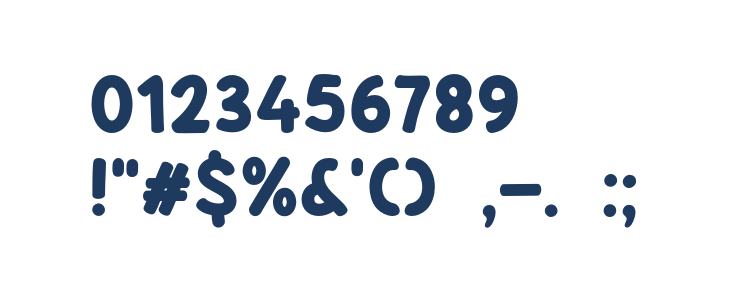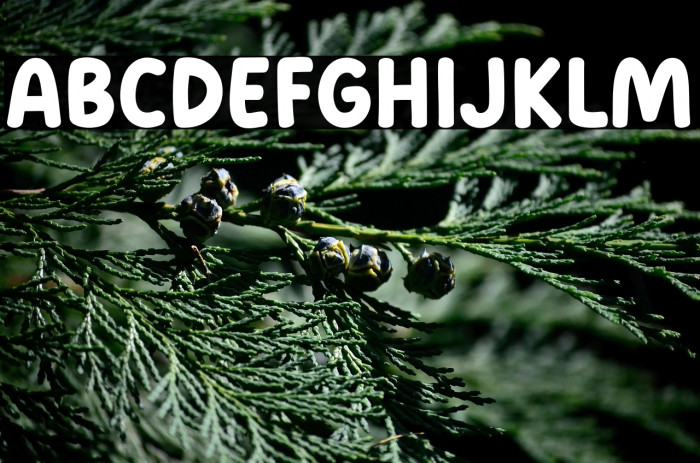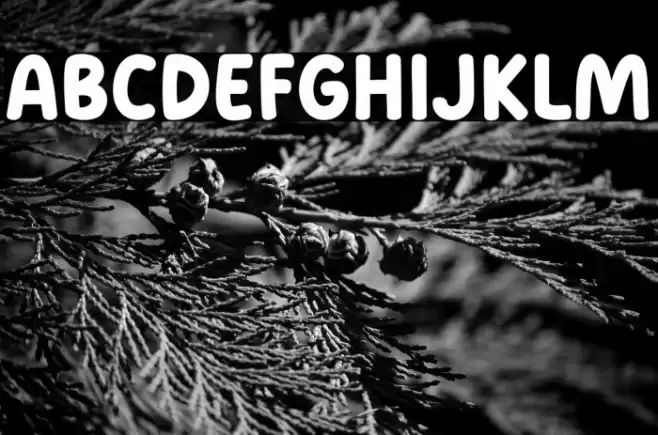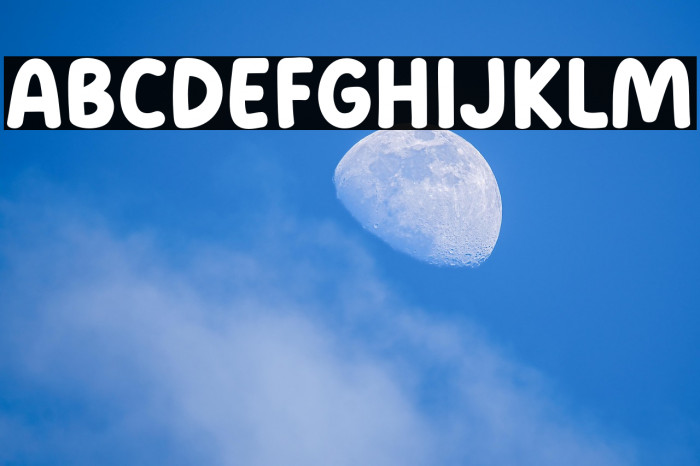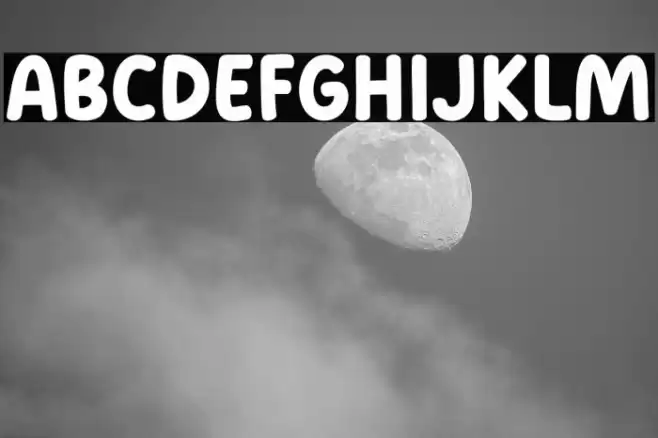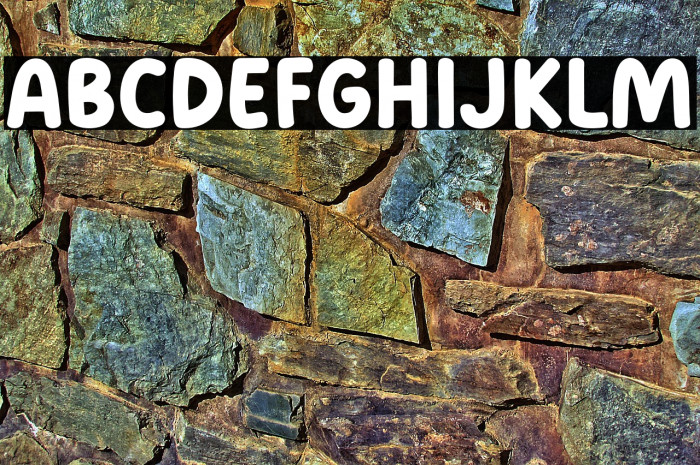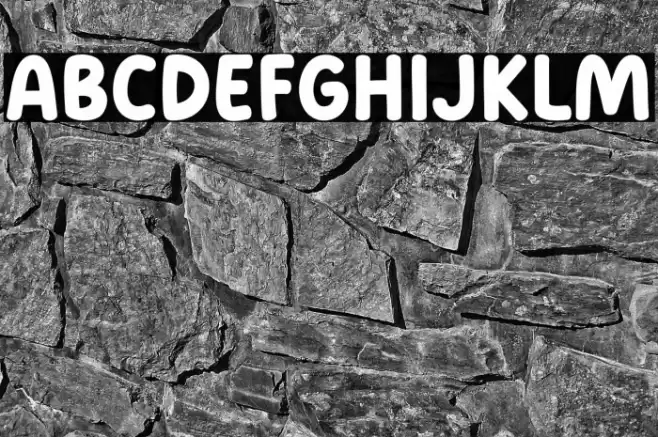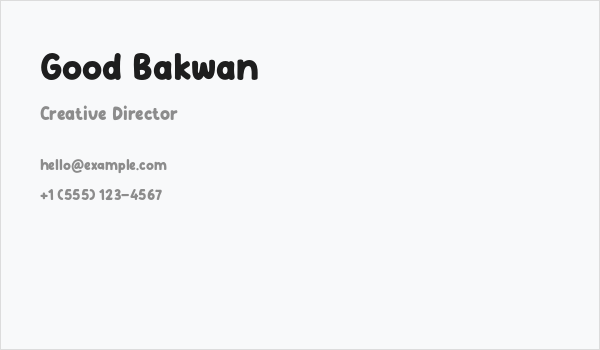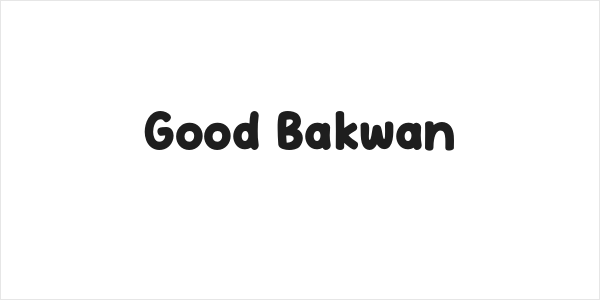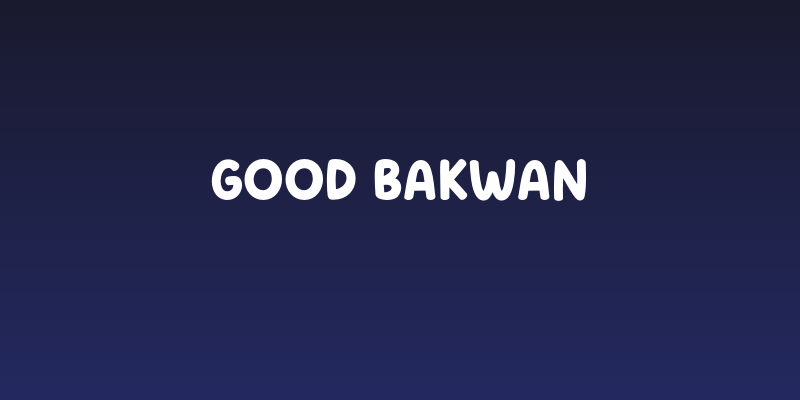
Good Bakwan Font
Good Bakwan Description
This playful and bold font features rounded edges and a thick, uniform stroke that gives it a friendly and approachable appearance. The characters are slightly condensed, enhancing readability while maintaining a fun and casual vibe. The font's design is consistent across uppercase, lowercase, numbers, and special characters, making it versatile for various applications. Its rounded forms and consistent weight make it ideal for projects that require a warm and inviting feel. The font's simplicity and clarity ensure it stands out without overwhelming the viewer.
Proposed ProjectsIdeal for children's books, playful branding, casual invitations, and social media graphics.